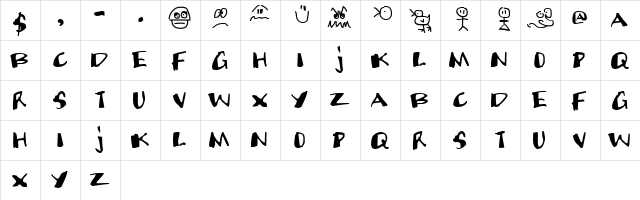
Candy Sniper Regular
Design Context for Candy Sniper Typeface
Candy Sniper is a composed and adaptable typeface that performs quietly and consistently across a wide range of design contexts.